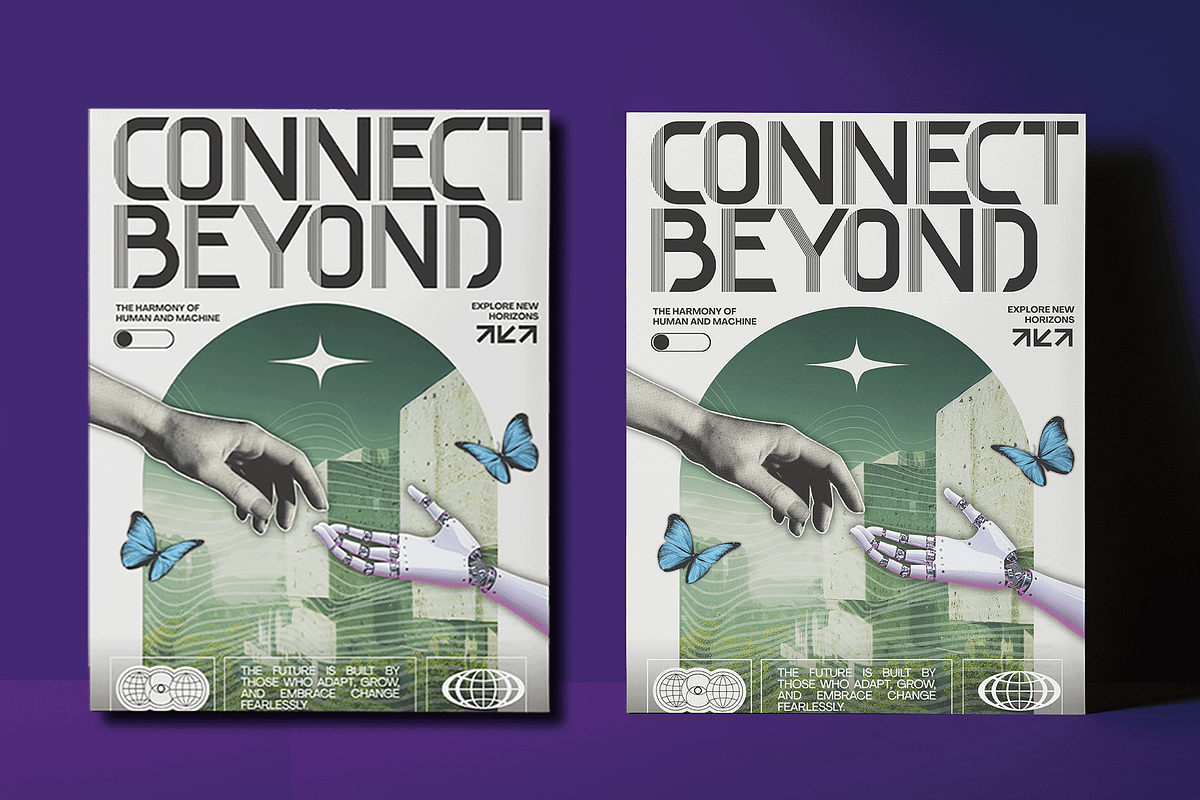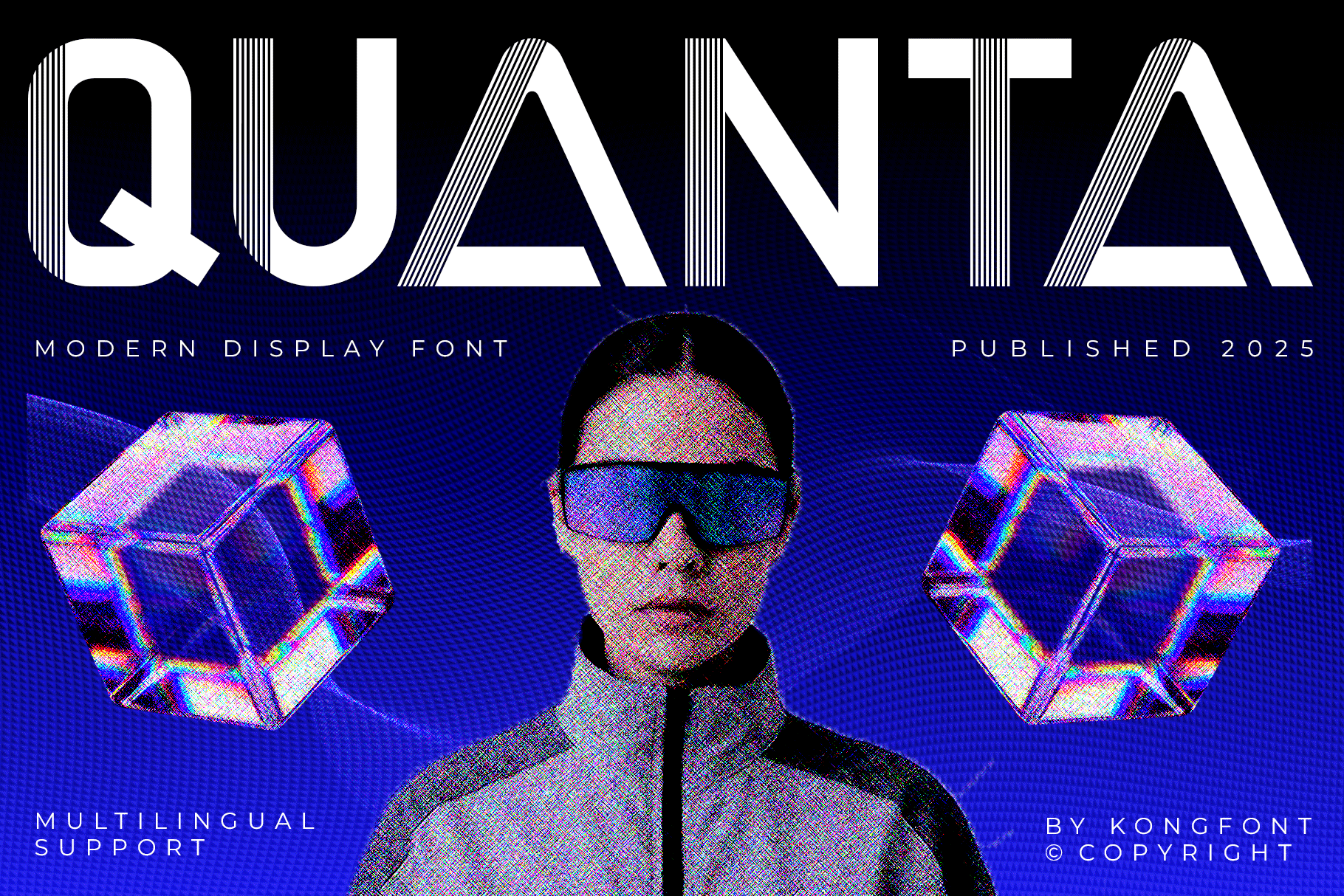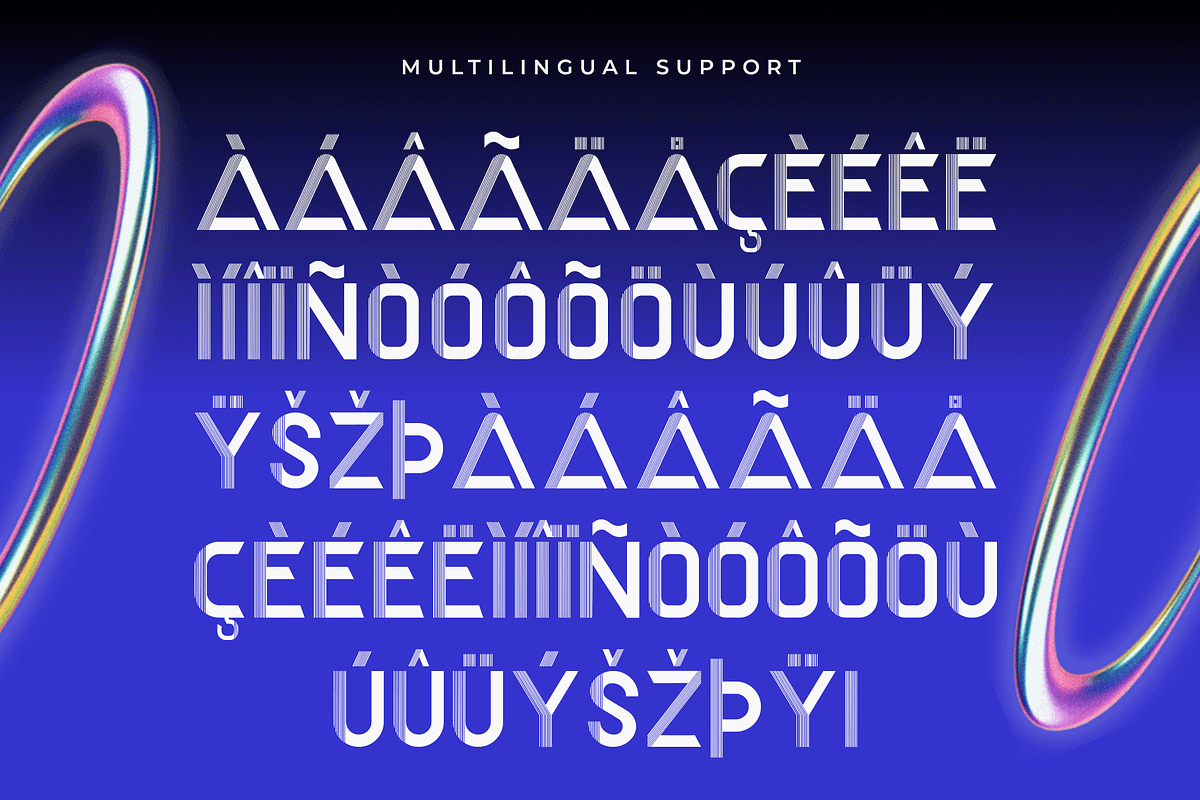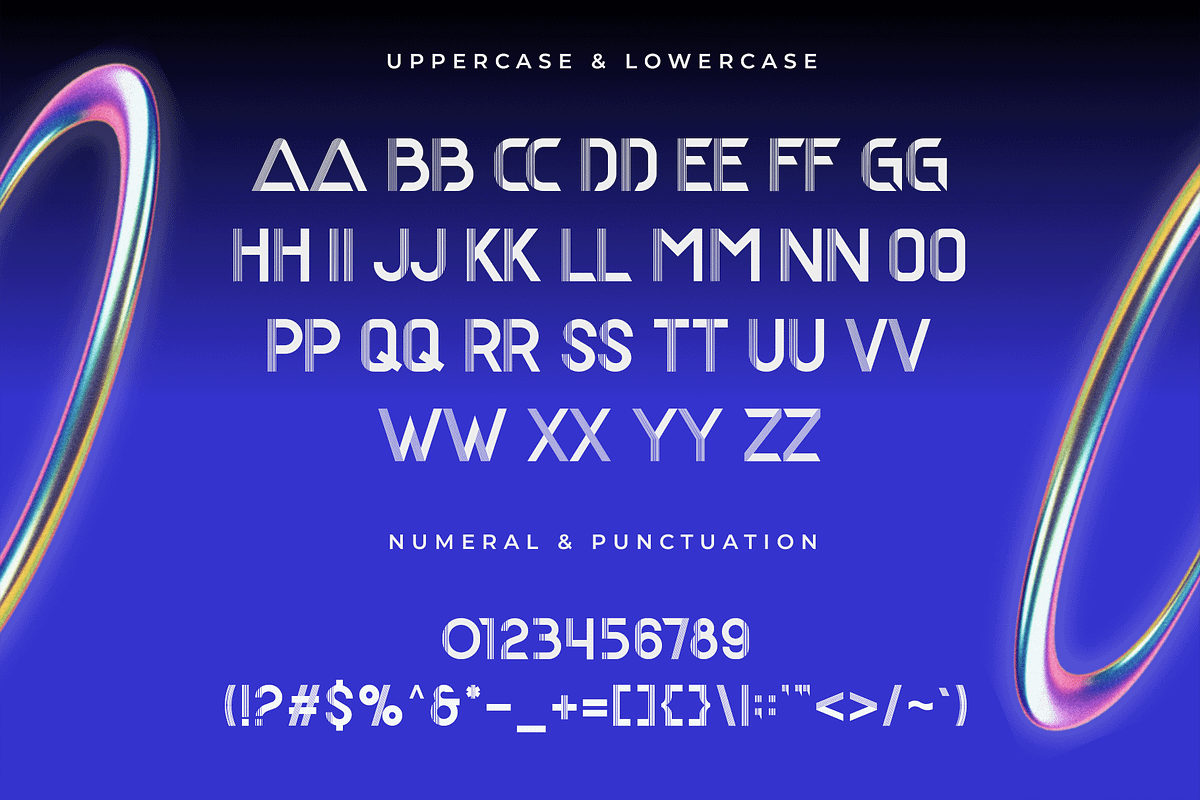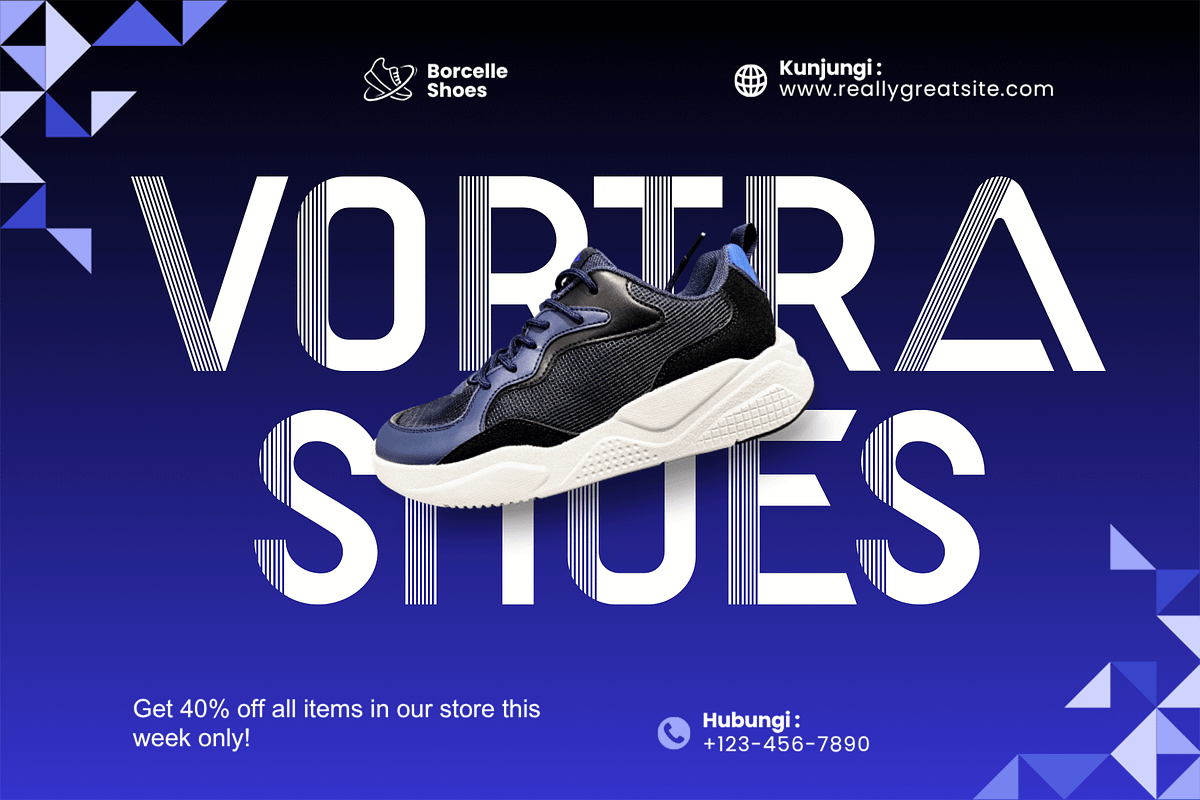
Quanta – Modern Display Font
Meet Quanta, a modern display font that radiates dynamic energy and futuristic sophistication. Designed with sharp geometry and balanced proportions, Quanta is built to make bold statements while maintaining clean visual harmony. Its distinctive letterforms bring a sense of innovation and precision, perfect for projects that need a modern and impactful touch.
Ideal for branding, logos, posters, packaging, and editorial headlines, Quanta stands out with its confident style and striking versatility. Whether you’re designing a high-tech brand identity or an avant-garde creative piece, Quanta gives your typography a sleek, powerful presence.
Let Quanta transform your next project with modern aesthetics, futuristic flair, and uncompromising boldness.